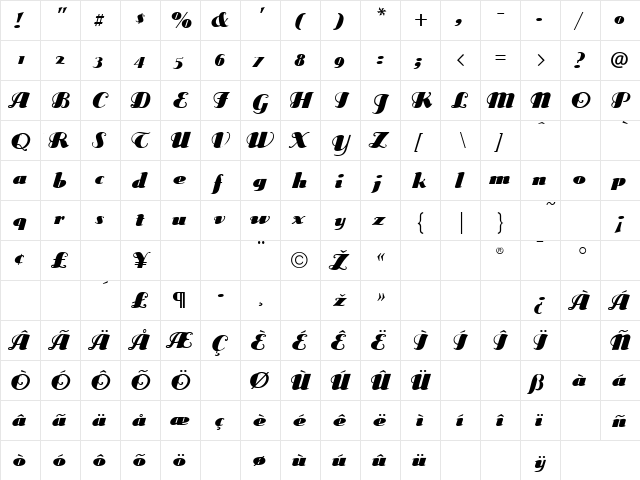
Stygian Black Italic Normal
Design Context for Stygian Black Italic Typeface
Stygian Black Italic is a composed and adaptable typeface that performs quietly and consistently across a wide range of design contexts. The slanted form adds forward momentum and visual energy.